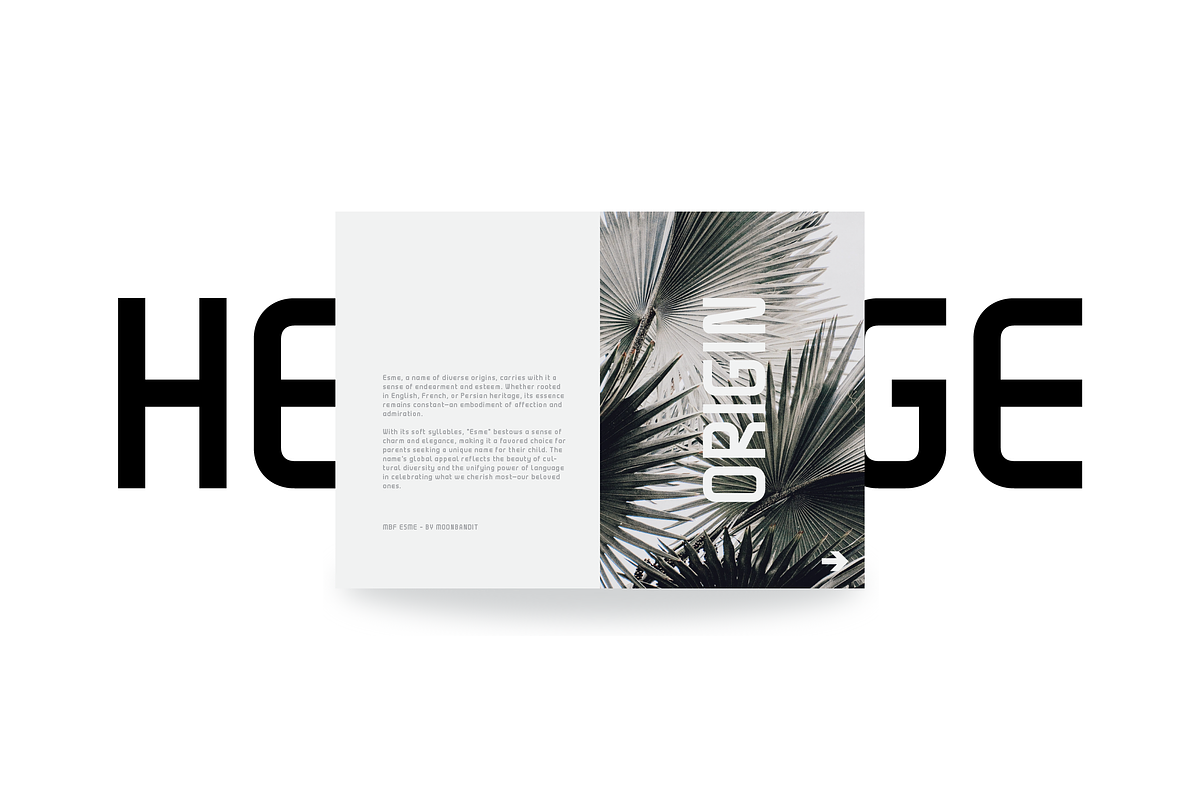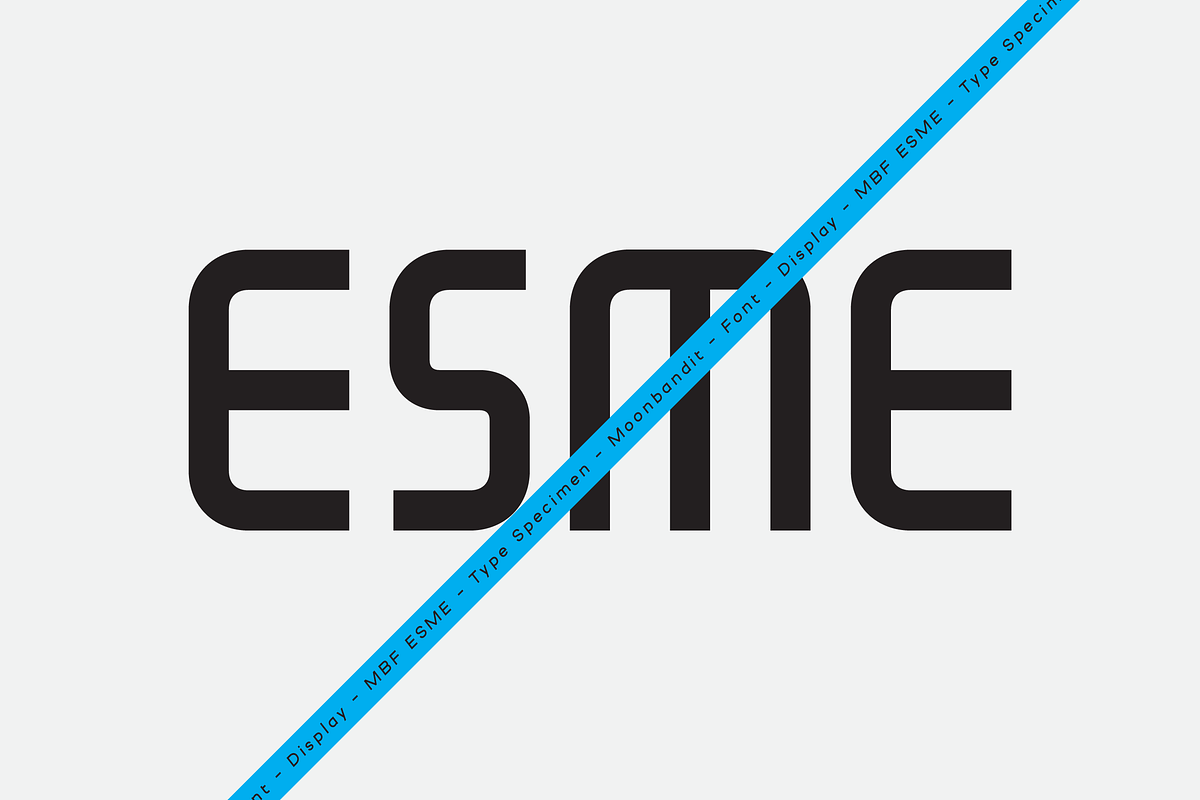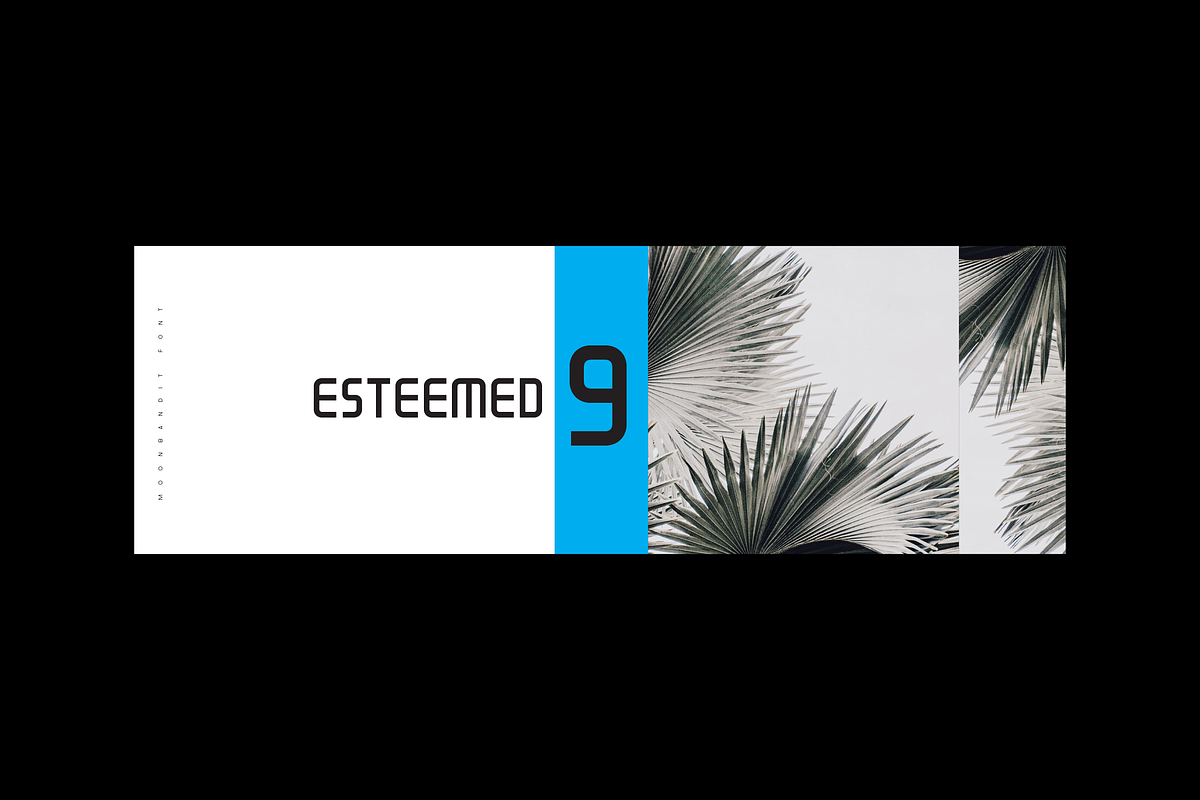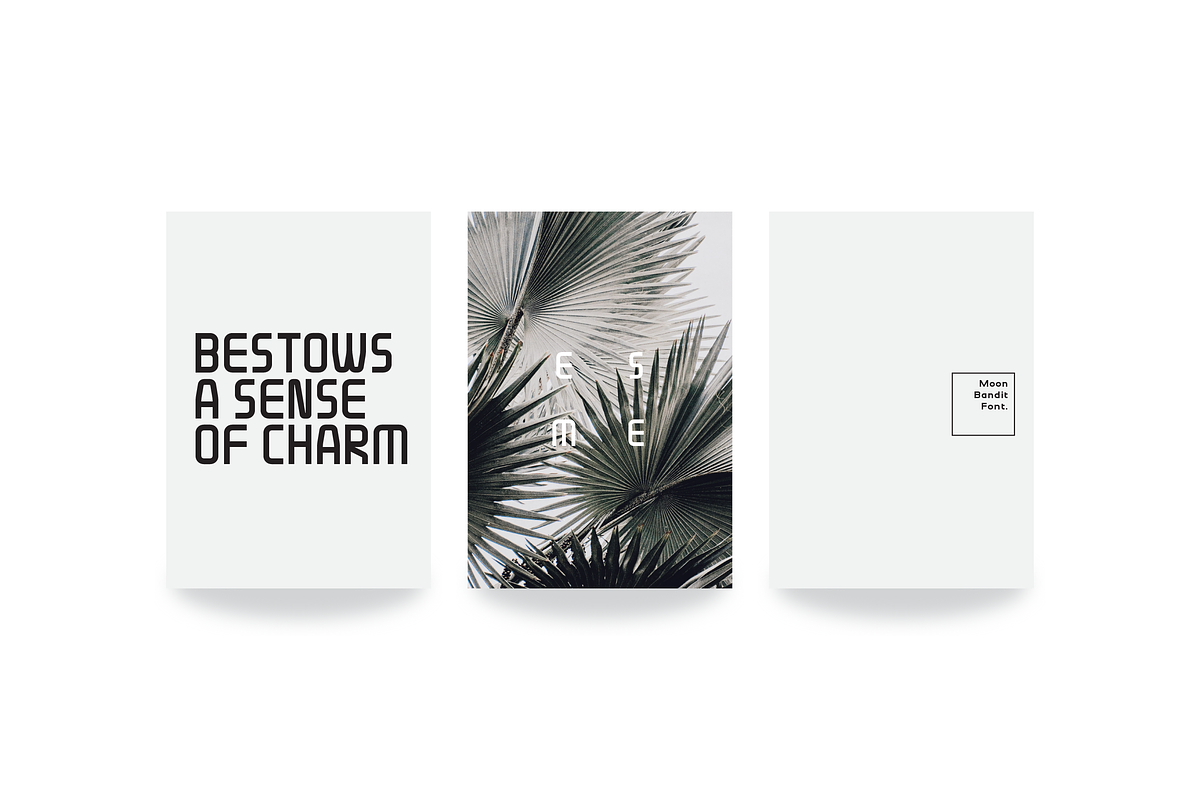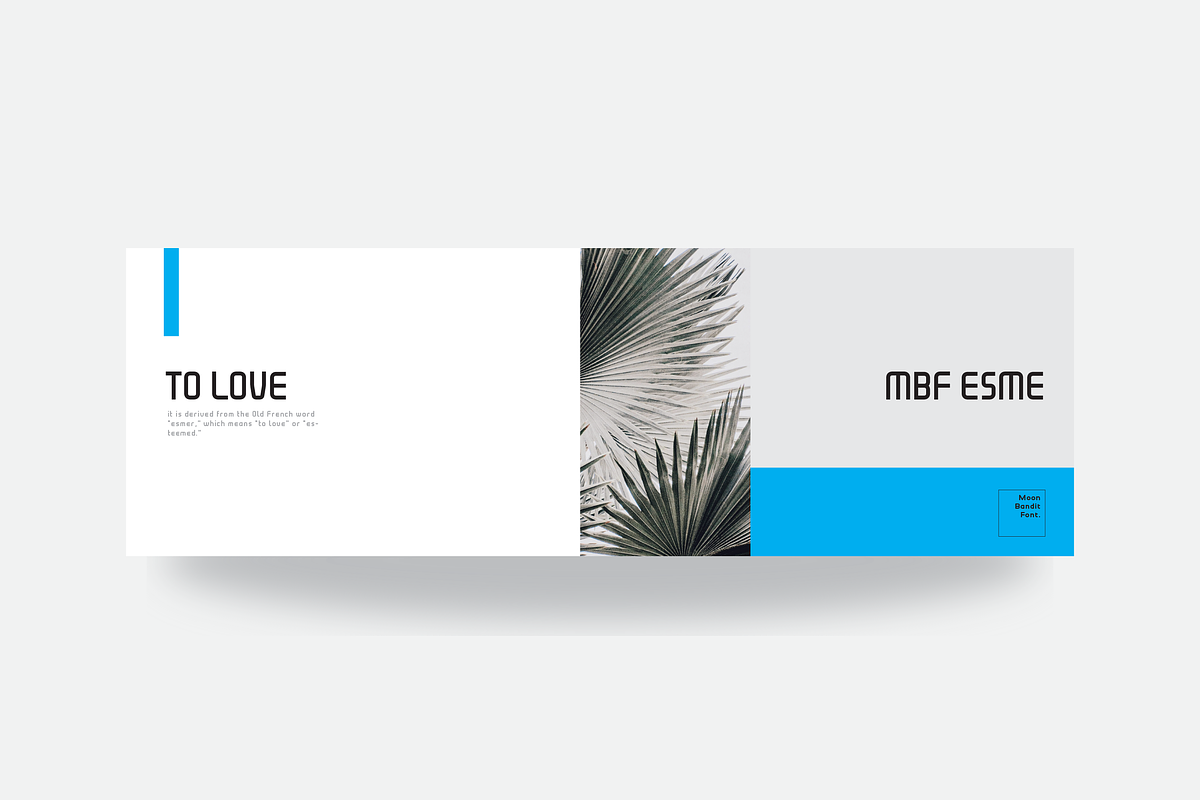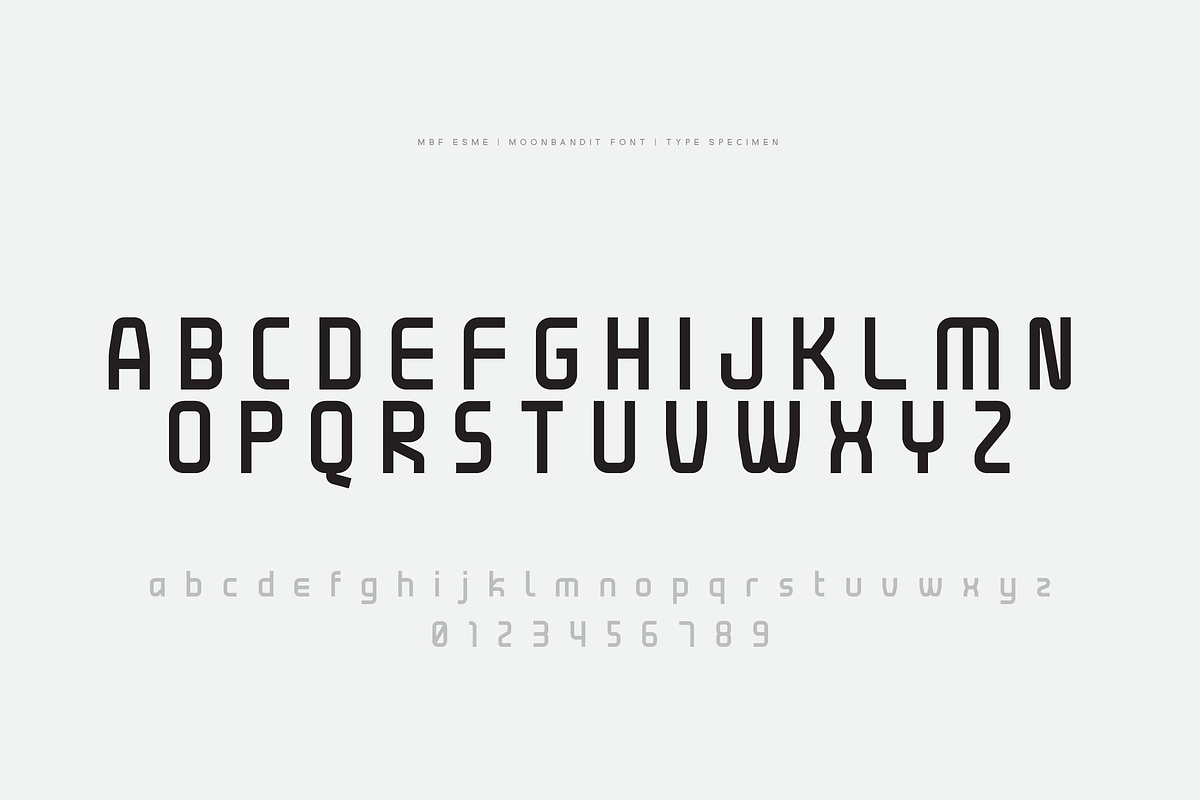
MBF Esme - Condensed Techno
Condensed display font with rounded corners is a popular design choice for many projects. This type of font is sleek and modern, making it perfect for branding materials or posters. The condensed style allows for more text to fit in a smaller space, while the rounded corners add a touch of softness to the overall look. This combination creates a unique and eye-catching visual that is sure to grab the viewer's attention. Additionally, the rounded corners make the font feel more approachable and friendly. Whether you're designing a logo or an advertisement, MBF Esme can be an excellent choice to help your message stand out.
MBF Esme font is a modern, futuristic typeface with sleek, rounded edges and a condensed look. It is a perfect choice for any project that needs an edgy, modern touch. It's perfect for creating logos, headlines, and posters that stand out from the crowd. Its clean lines and curves make it easy to read, and its bold weight makes it stand out even more. MBF Esme font will make any project stand out from the crowd!